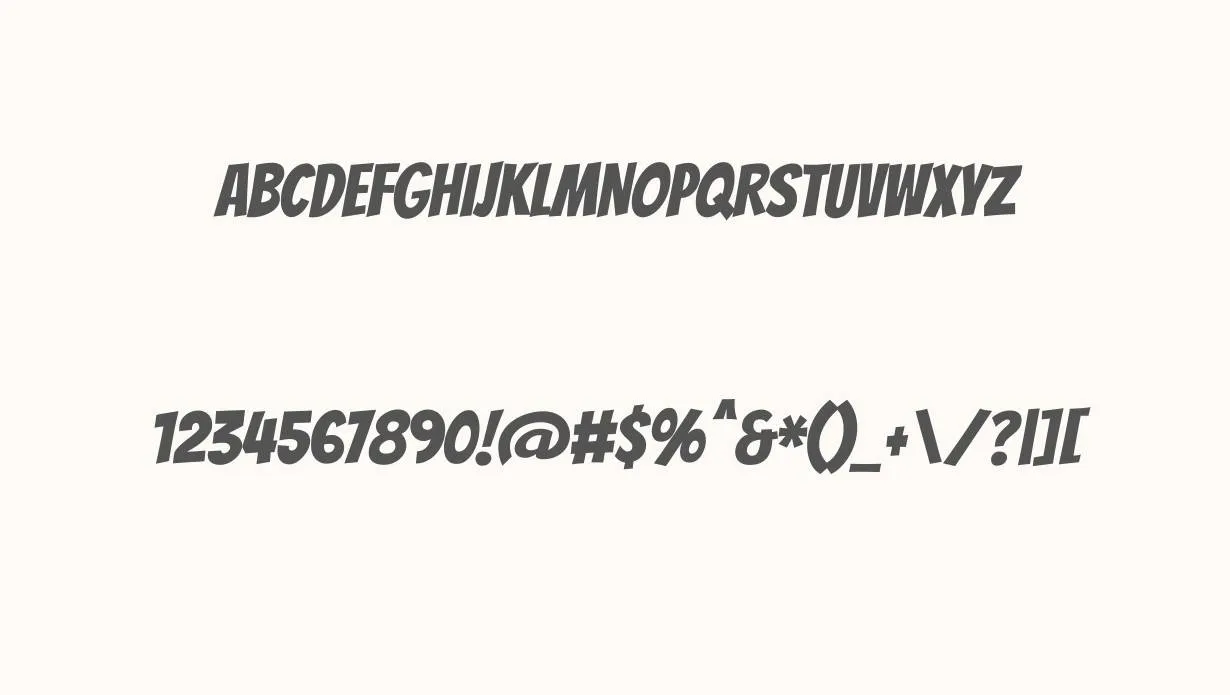
Superhero font is like a strong friend for your words. The letters have a bold and dynamic design, making your text feel brave and exciting. It’s perfect for making things that need to stand out, like posters for superhero events or signs that call for attention.
Using Superhero font is like putting on a cape for your words. It’s like making your text feel ready to save the day or go on an epic adventure. Whether you’re designing a sign for a school rally or creating materials for a sports team, Superhero font adds a touch of excitement and energy to your words.
| Name | Superhero Font |
| Designer | Vincent Connare |